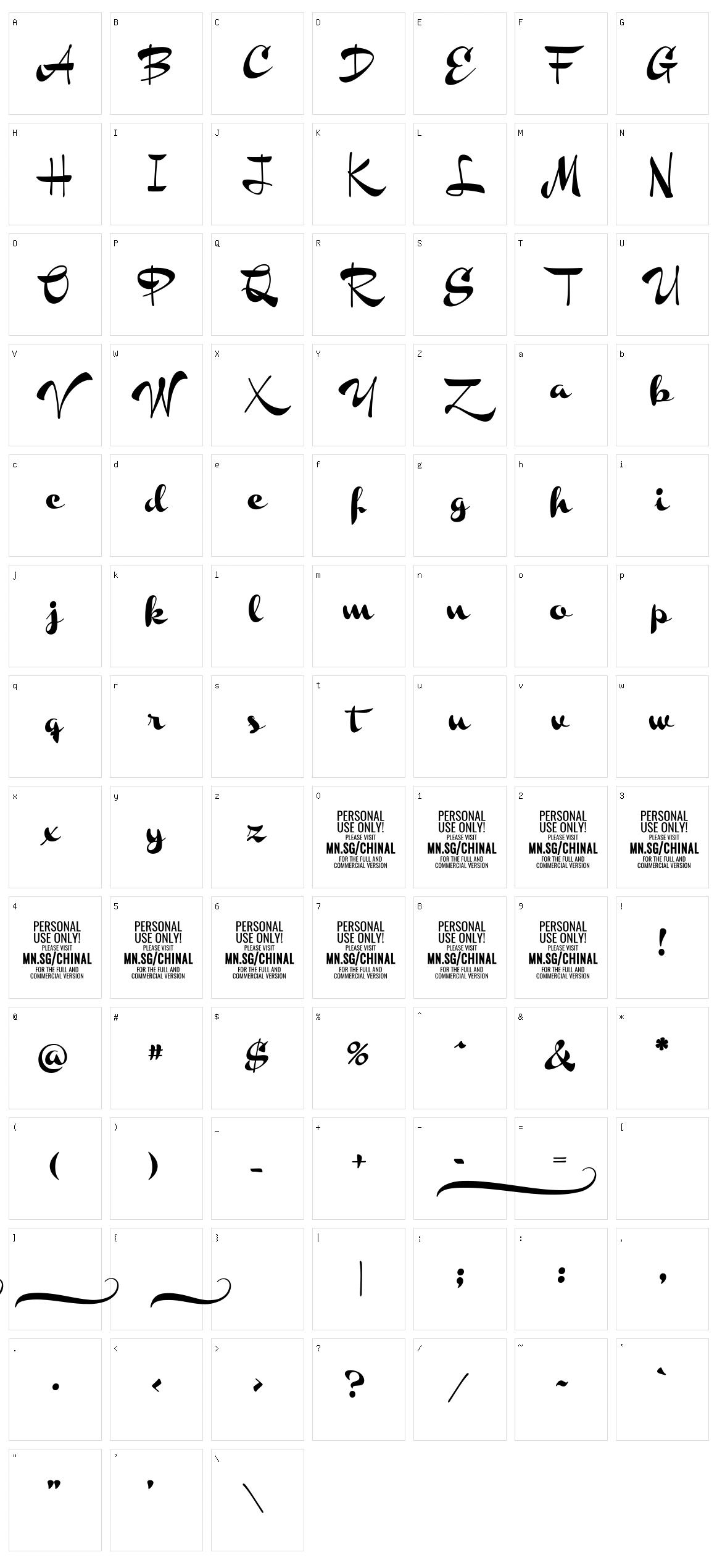
Chinal is a harmonic script typeface, drawn and created by Måns Grebäck during 2017.
This high quality typeface family comes in four complementing weights:
Chinal Light, Chinal Medium, Chinal Bold and Chinal Black.
The font also contains multiple extra OpenType features; including
contextual alternates, a set of stylistic alternate characters,
swashes, initial and final letters, ornaments and ligatures.
With its hundreds of glyphs, Chinal supports a very wide range of languages.
Make swashes with [ ] { }
Example: Chinal{